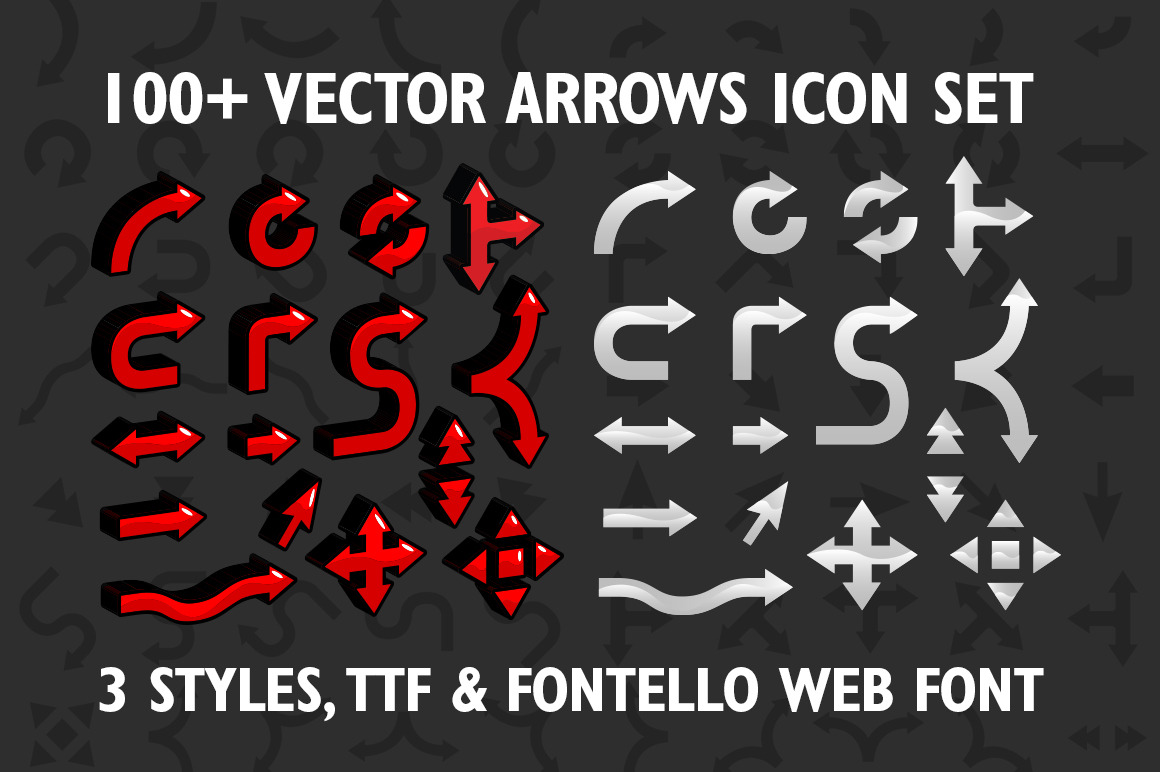
100+ Vector arrows set & web font
More than 100 vector arrows icon set design including ttf & fontello web font for your site or app
Vector arrows icon set for mobile devices apps and web sites graphic users interfaces. 3D arrows, flat arrows and silver arrows for online platforms, apps and video games in desktop computers, laptops, tablets and smartphones.
Fontello webfont Symbols ready to be used as a font in web pages, wordpress and mobile apps.
- 3 different styles included. (3D red, silver and flat)